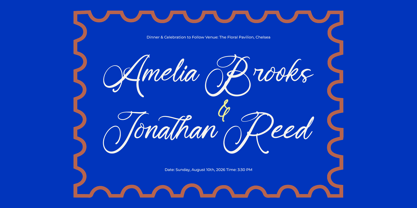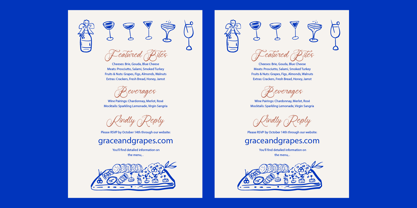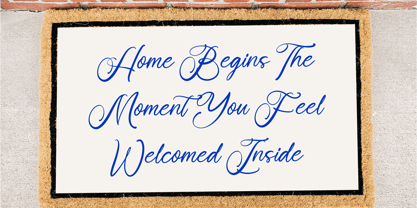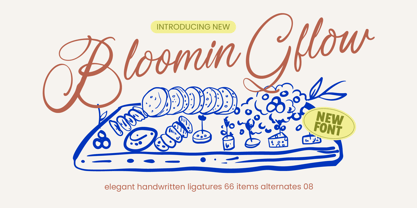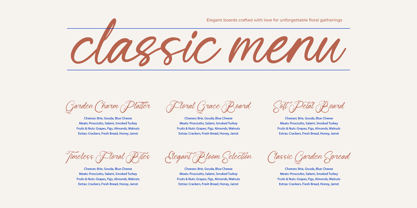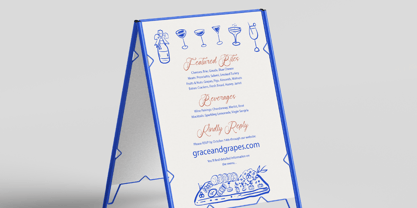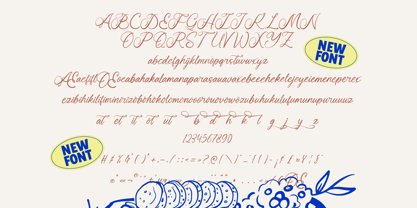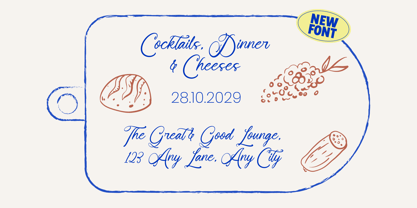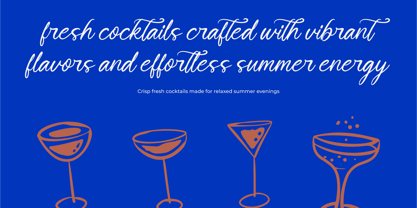
Bloomin Gflow
by Amorfa Type
The Bloomin Gflow Font Family was designed by Shiddiq Roihan and published by Amorfa Type. Bloomin Gflow contains 2 styles and family package options. More about this family
Bloomin Gflow is an elegant handwritten font that captures a natural, flowing character with refined strokes and expressive curves. Designed to feel warm, personal, and stylish, this font brings a handcrafted touch that feels both graceful and contemporary. With its smooth letter connections, organic rhythm, and carefully balanced forms, Bloomin Gflow adds charm and personality to your typography while maintaining clarity and visual harmony. It is ideal for branding, invitations, packaging, lifestyle designs, editorial titles, menus, and creative headlines that require an authentic handwritten feel.